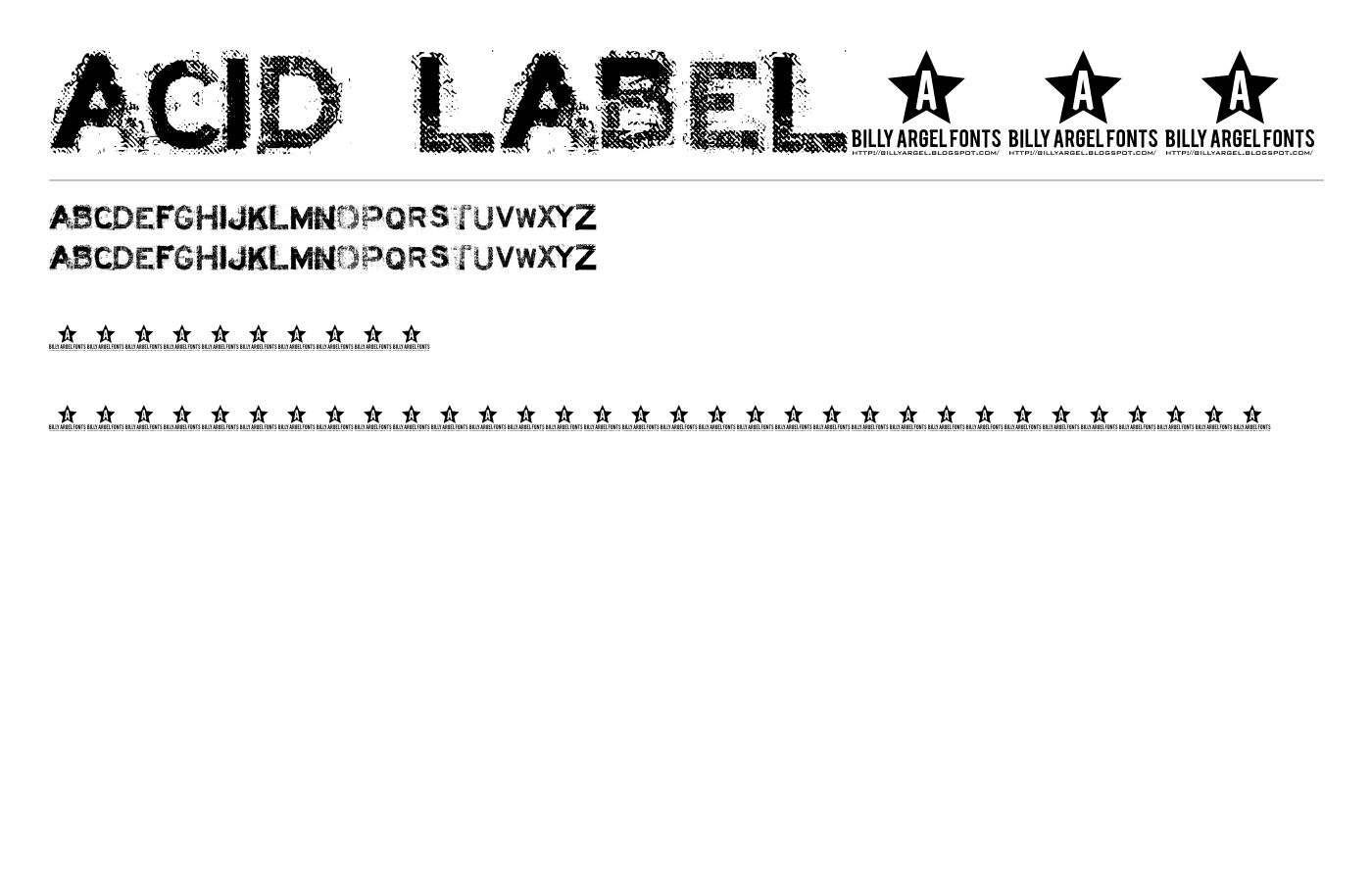
ACID LABEL___ is a bold, distressed sans serif font featuring a gritty, textured look that conveys a raw, edgy vibe. Its condensed letterforms with uneven, speckled edges give it an industrial, worn-in feel perfect for urban, alternative, or vintage-inspired designs. This font works well for striking headlines, logos, and packaging where a bold, rebellious statement is desired.
ACID LABEL___ Font
About ACID LABEL___ Font
| Font family | ACID LABEL___ Font |